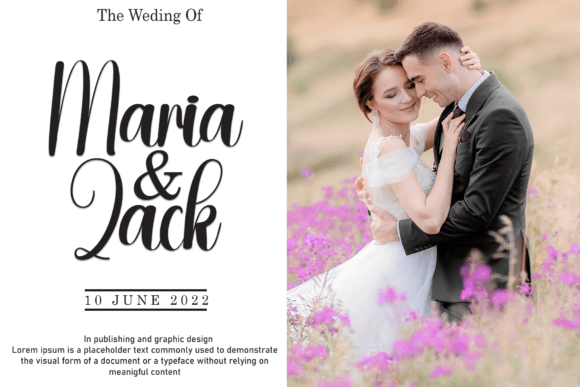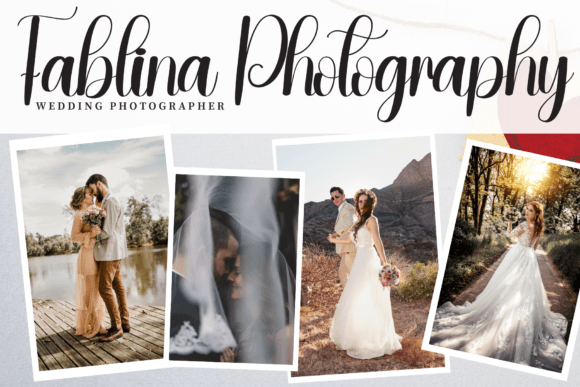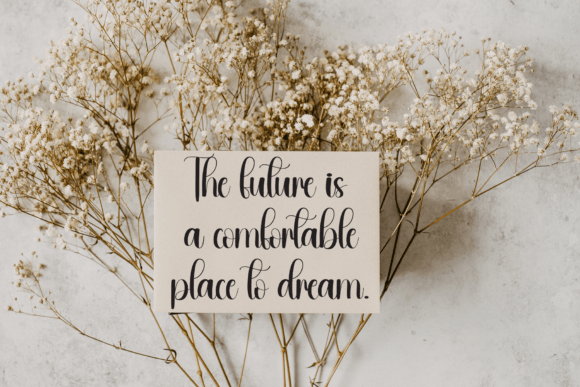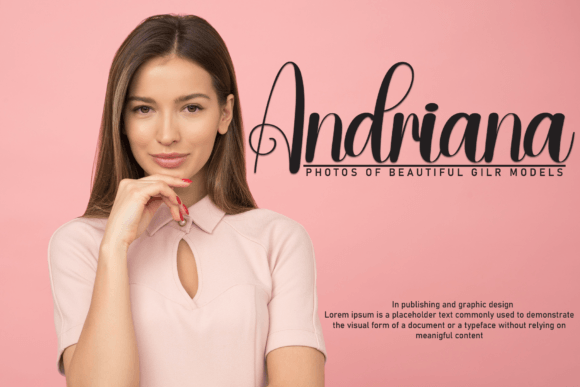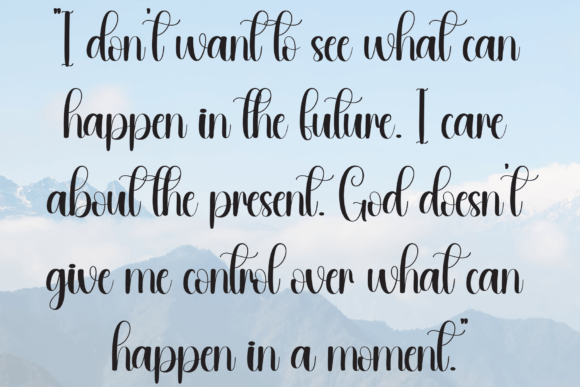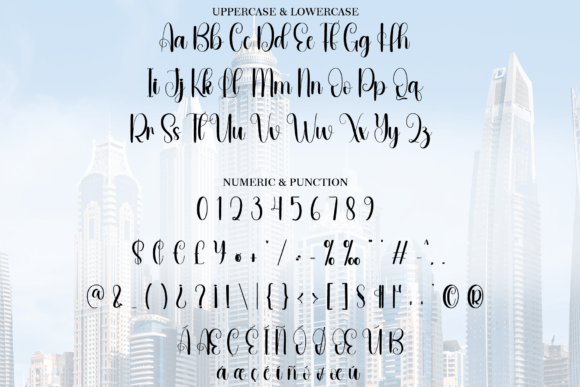
Introducing Emirate Font: The Sweet and Friendly Handwritten Font for Your Design Needs
Are you looking for a font that can add a personal touch to your designs? Do you want to create beautiful wedding invitations, cards, or other materials that exude warmth and friendliness? Look no further than Emirate Font, a lovely handwritten font that’s perfect for a variety of design projects.
What is Emirate Font?
Emirate Font is a sweet and friendly handwritten font that’s designed to bring a fresh and casual feel to your designs. With its elegant and cursive strokes, this font is ideal for creating beautiful wedding invitations, cards, and other materials that require a personal touch.
Characteristics of Emirate Font
So, what makes Emirate Font so special? Here are some of its key characteristics:
- Sweet and Friendly: Emirate Font has a warm and inviting feel that’s perfect for creating designs that are personal and heartfelt.
- Handwritten: This font has a beautiful, handwritten quality that’s perfect for creating unique and personalized designs.
- Fresh and Casual: Emirate Font has a fresh and casual feel that’s perfect for creating designs that are relaxed and informal.
- Versatile: This font is versatile and can be used for a variety of design projects, from wedding invitations to cards, and more.
Uses of Emirate Font
So, what can you use Emirate Font for? Here are some ideas:
- Wedding Invitations: Emirate Font is perfect for creating beautiful wedding invitations that are personal and heartfelt.
- Cards: This font is great for creating greeting cards, birthday cards, and other types of cards that require a personal touch.
- Stationery: Emirate Font can be used to create beautiful stationery, including letterheads, notebooks, and more.
- Social Media Graphics: This font can be used to create social media graphics, including Facebook posts, Instagram posts, and more.
Benefits of Using Emirate Font
So, why should you use Emirate Font for your design projects? Here are some benefits:
- Unique and Personalized: Emirate Font allows you to create unique and personalized designs that stand out from the crowd.
- Easy to Read: This font is easy to read, even at small sizes, making it perfect for creating designs that need to be legible.
- Flexible: Emirate Font can be used for a variety of design projects, from print to digital.
- High-Quality: This font is high-quality and can be used for professional design projects.
Tips for Using Emirate Font
Here are some tips for using Emirate Font:
- Use it for Headings: Emirate Font is perfect for use as headings, titles, and subtitles.
- Pair it with Other Fonts: This font can be paired with other fonts to create a unique and interesting design.
- Experiment with Colors: Emirate Font looks great in a variety of colors, so don’t be afraid to experiment.
- Use it for Digital and Print: This font can be used for both digital and print projects.
Emirate Font is a beautiful and versatile handwritten font that’s perfect for a variety of design projects. With its sweet and friendly feel, this font is ideal for creating wedding invitations, cards, and other materials that require a personal touch. Whether you’re a designer or a crafter, Emirate Font is a great addition to your font collection.